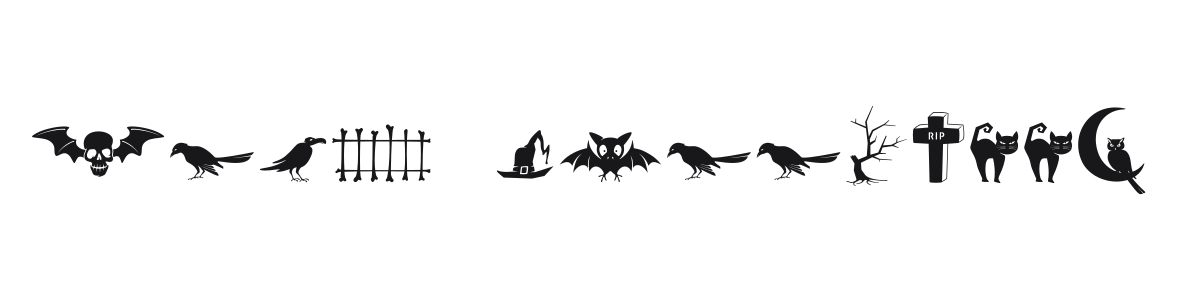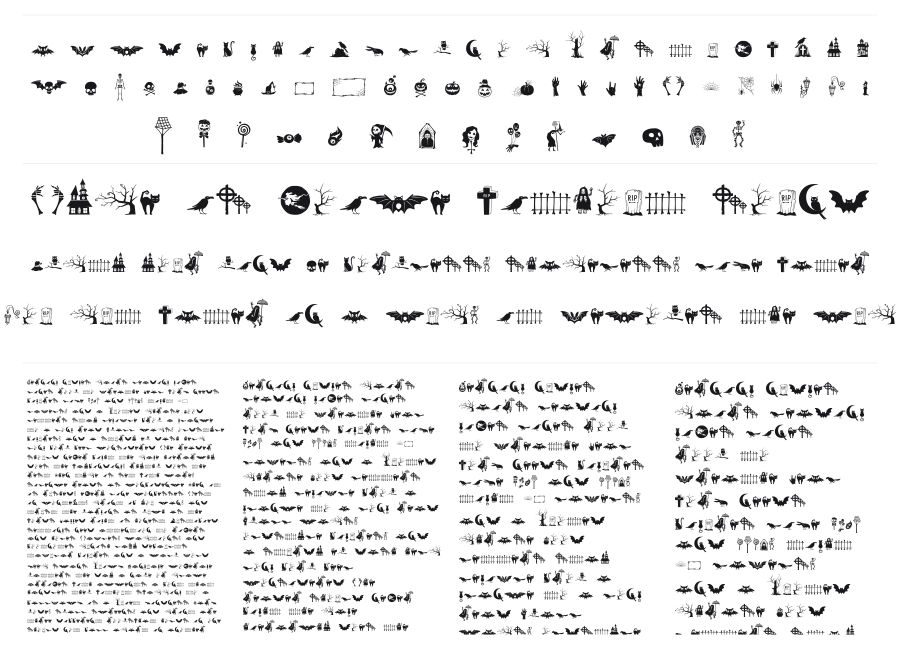
Alit Halloween
Alit Halloween is a silhouette dingbat font packed with classic Halloween imagery: bats, black cats, skulls, ravens, witches, gravestones, and more. Every glyph is a clean solid-fill icon rendered in a style that walks the line between spooky and charming. It is built for seasonal decoration, party materials, and festive packaging.